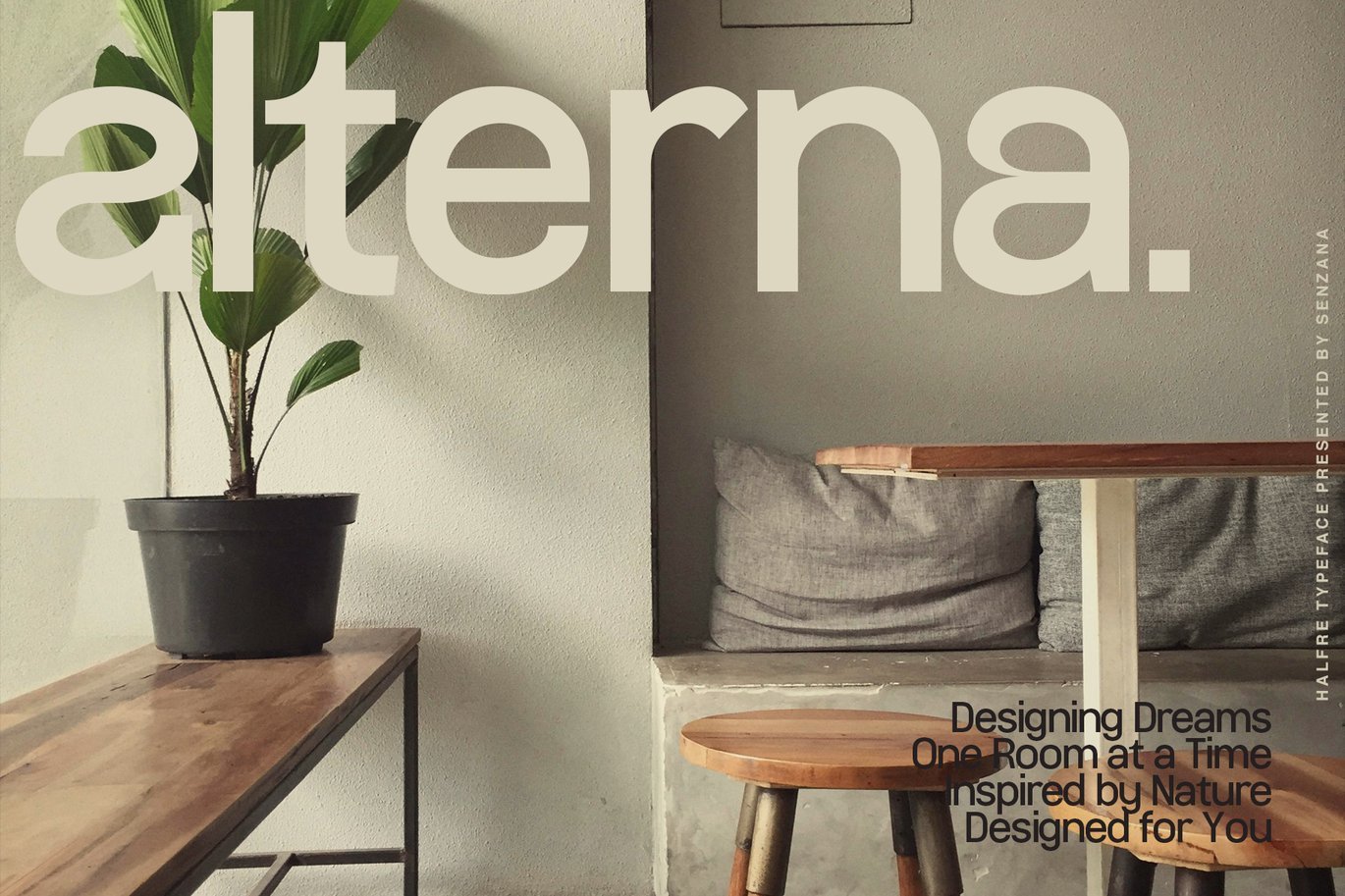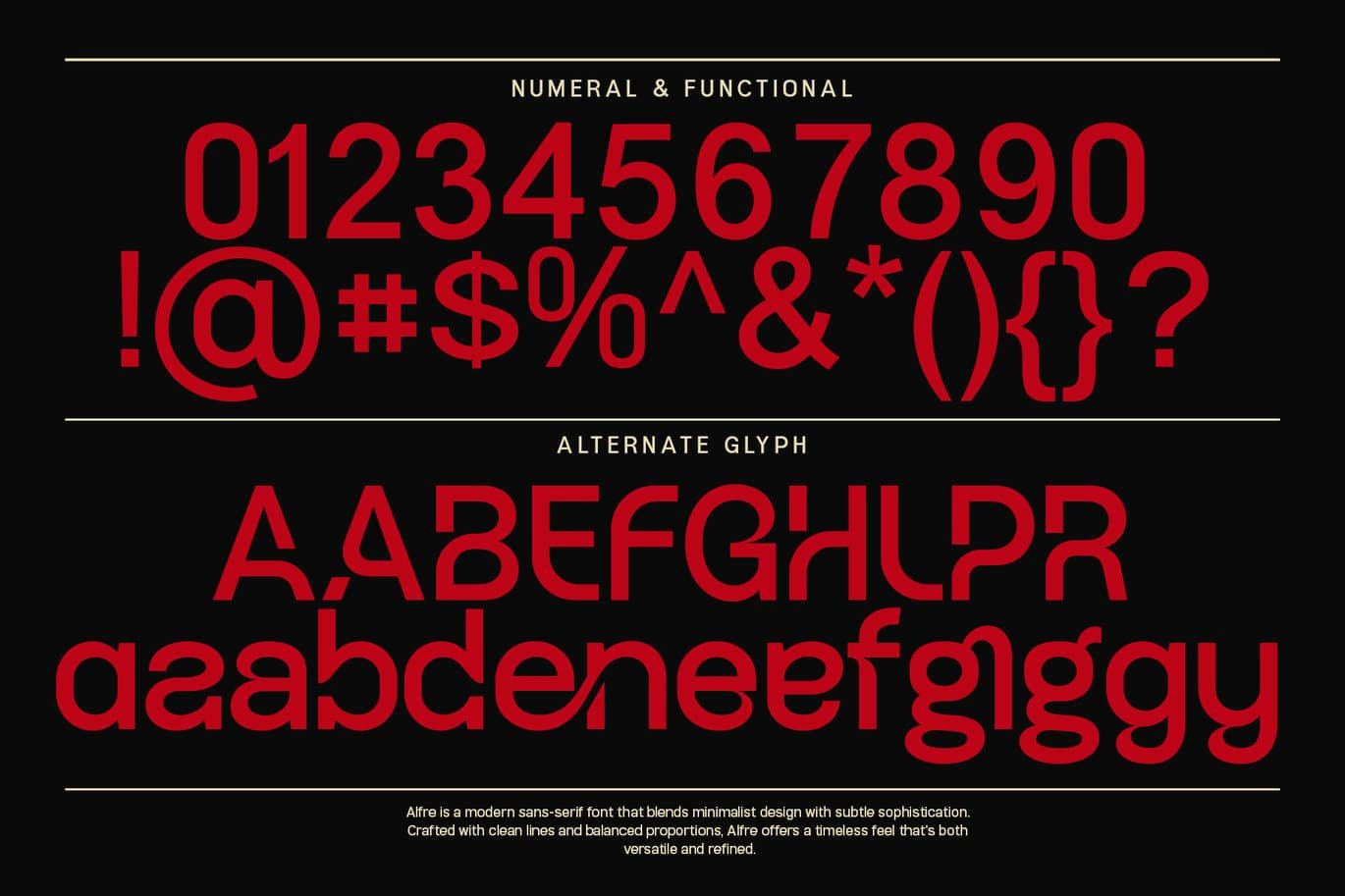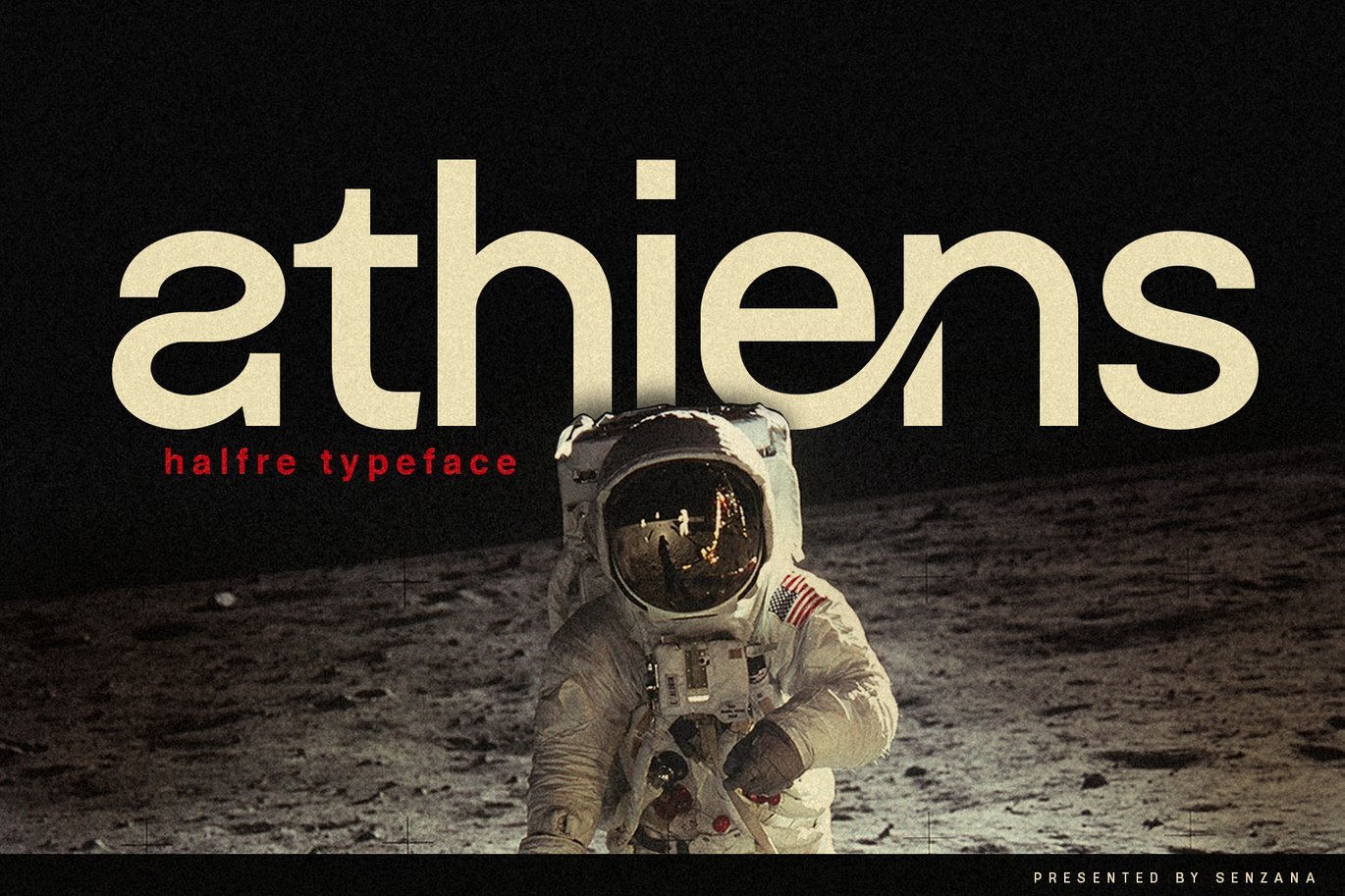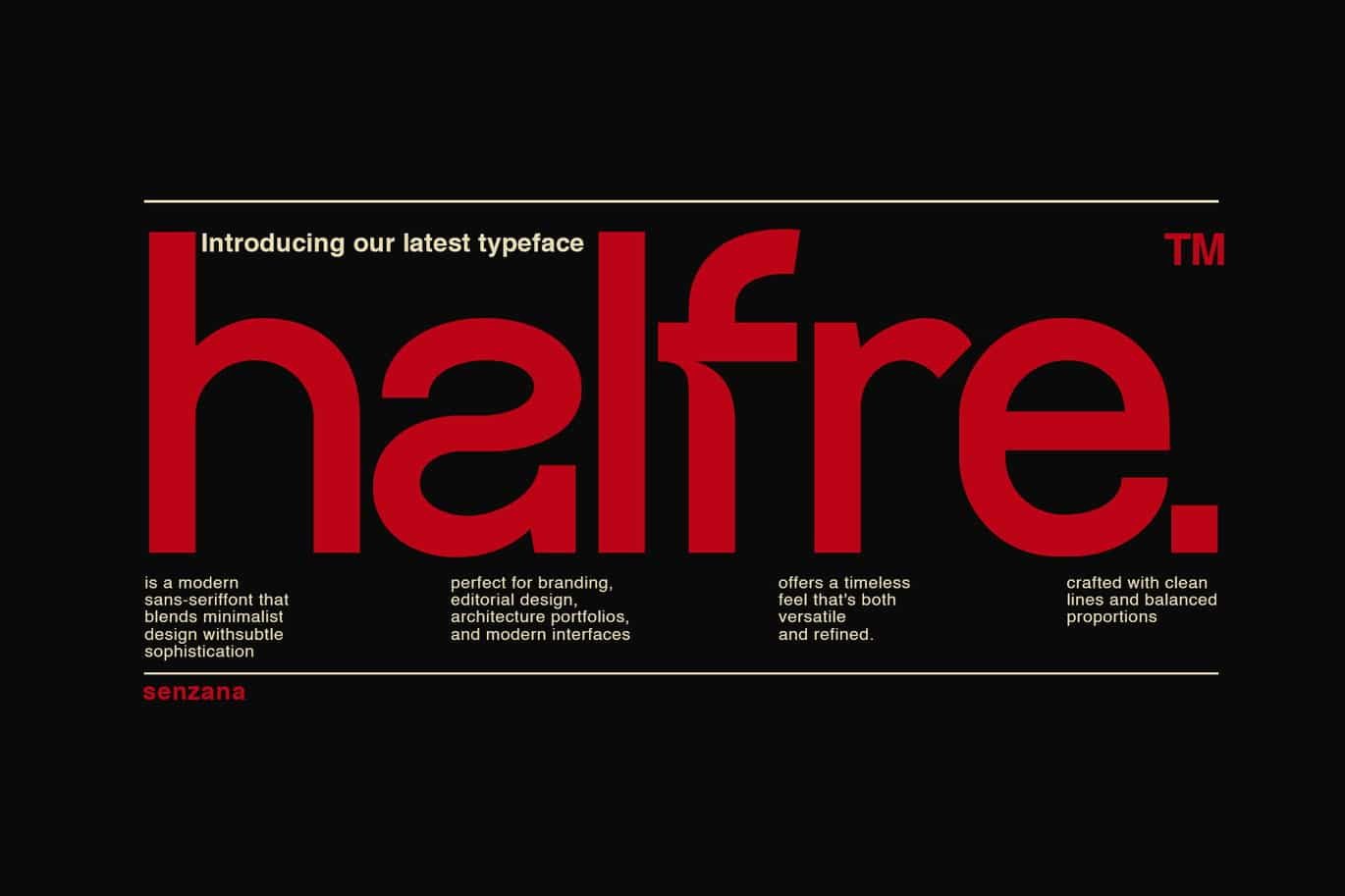
Halfre Font
Halfre is a modern sans-serif typeface designed with precision and intention. With its clean lines, balanced curves, and versatile form, Halfre brings a sense of quiet confidence to every composition — whether in branding, editorial layouts, UI design, or minimalist packaging.
Crafted to prioritize legibility and elegance, Halfre blends contemporary aesthetics with timeless simplicity. Each character is designed to speak clearly and effortlessly, making it the perfect choice for designers who value function without sacrificing style.
Whether you're building a digital interface or refining a brand’s visual voice, Halfre delivers a crisp, modern tone that adapts seamlessly across mediums.
Feature :
- Numeral
- Functional
- Alternate Glyph